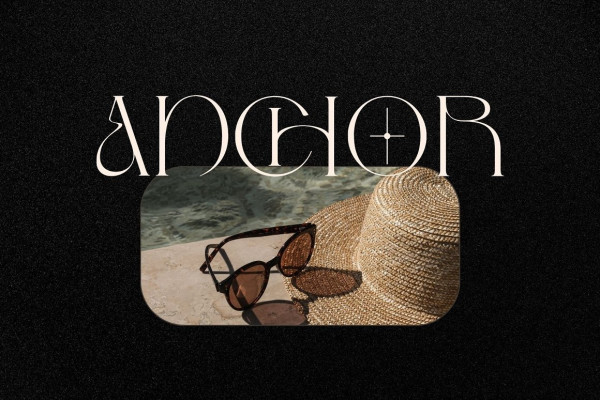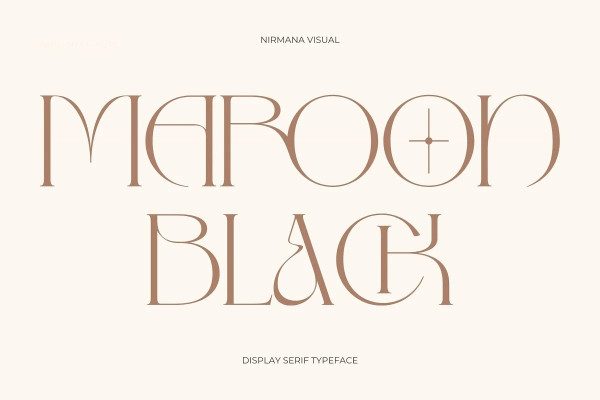
Maroon Black Font
Maroon Black Font – Modern Font, Serif Display Typeface. MaroonBlack offers beautiful typographic harmony for a diversity of design projects, including logos & branding, social media posts, advertisements & product designs.